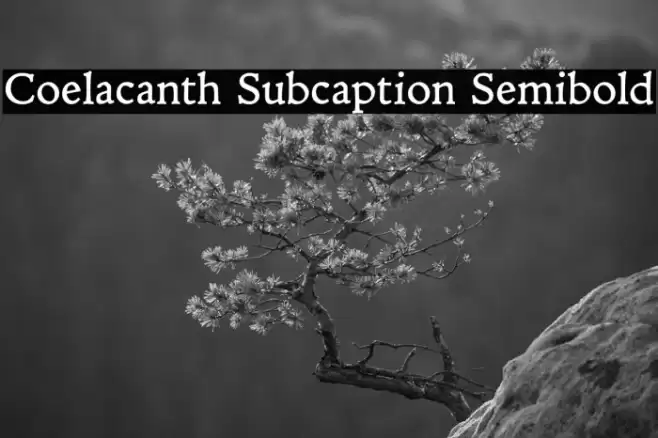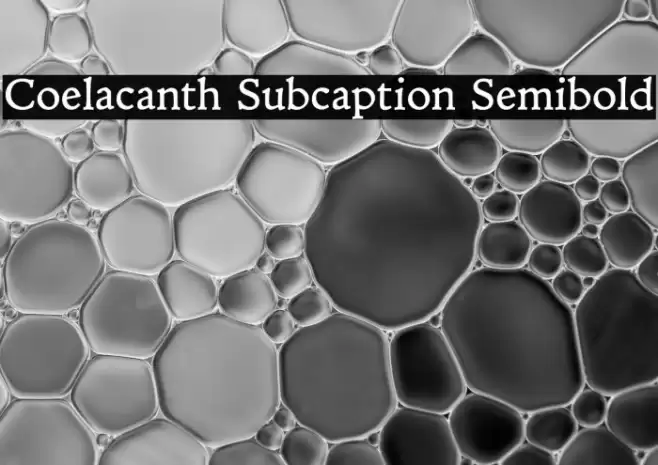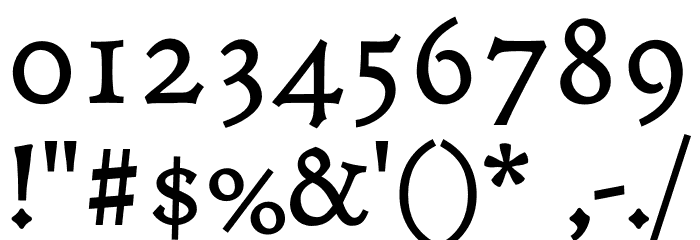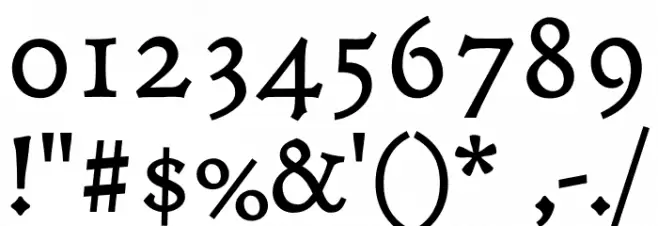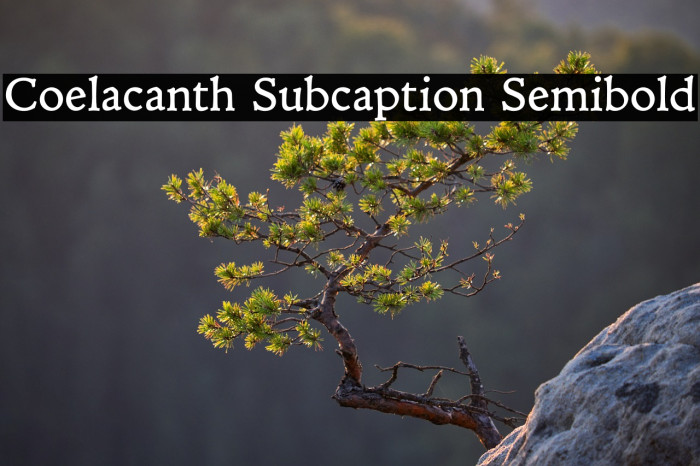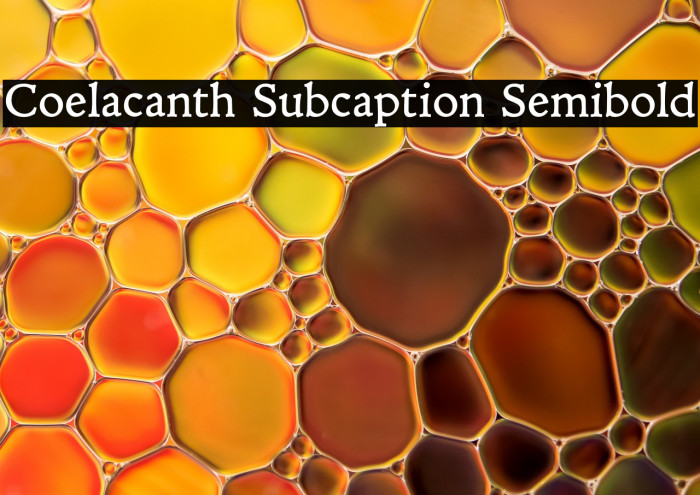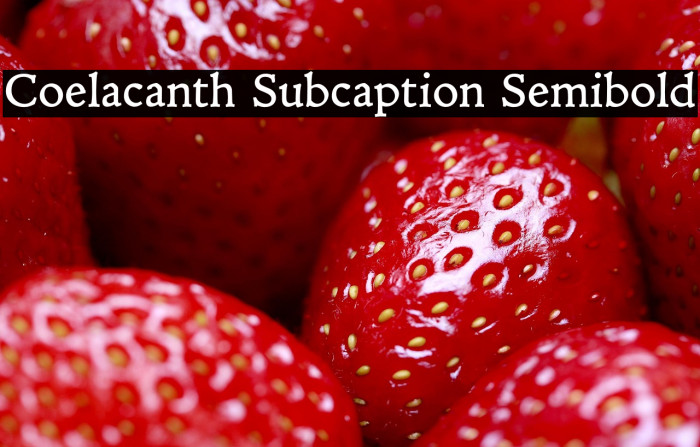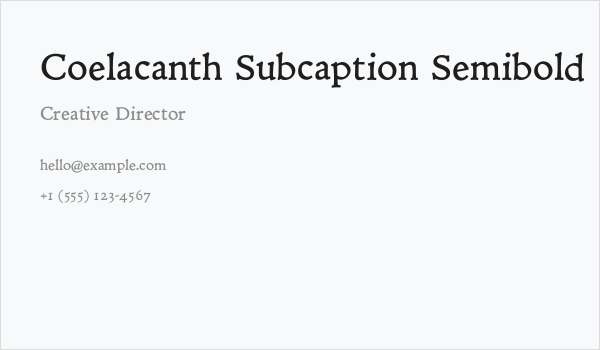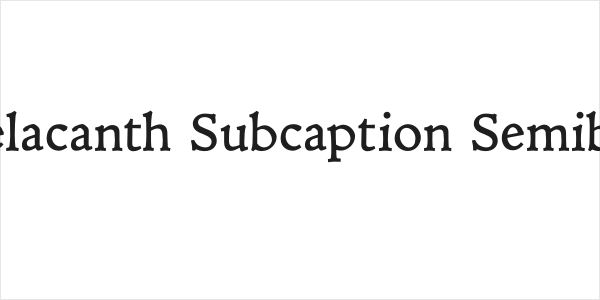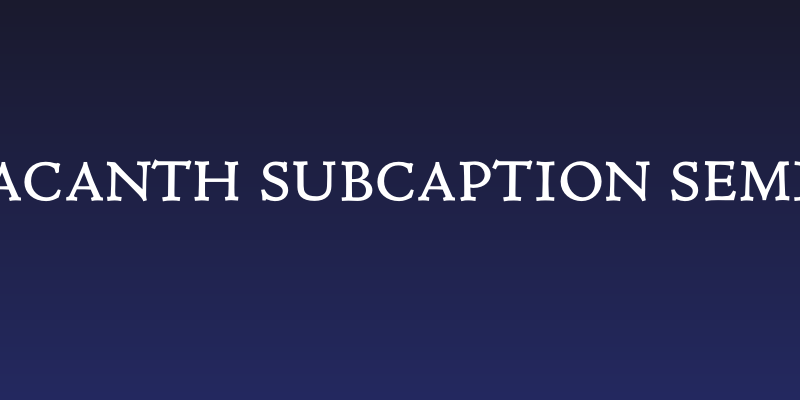
Coelacanth Subcaption Semibold Font
Coelacanth Subcaption Semibold Description
This font features a classic serif style with a distinctive and slightly whimsical touch. The serifs are pronounced and slightly curved, giving the typeface a unique character. The strokes are moderately thick, providing a medium contrast that enhances readability while maintaining an elegant appearance. The uppercase letters are bold and commanding, while the lowercase letters have a more playful and approachable feel. The numerals are clear and consistent, making them suitable for various applications. Special characters are well-integrated, maintaining the overall aesthetic of the font.
A classic serif font with medium contrast and a whimsical touch from Serif fonts.
- Proposed Projects: Ideal for book covers, editorial design, branding projects, and elegant invitations.
- Overall Style: Classic